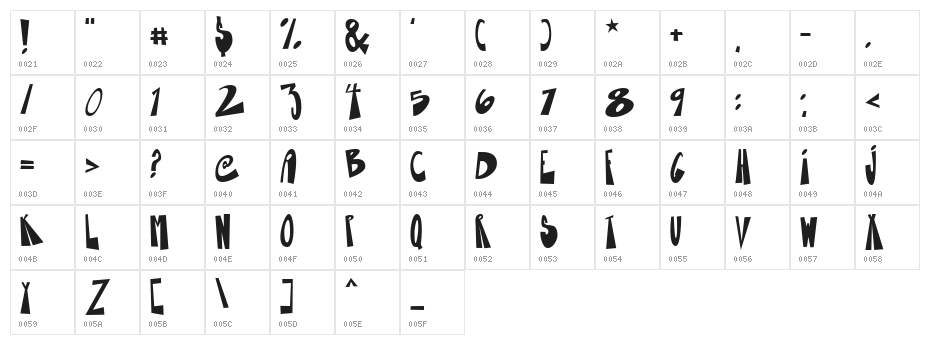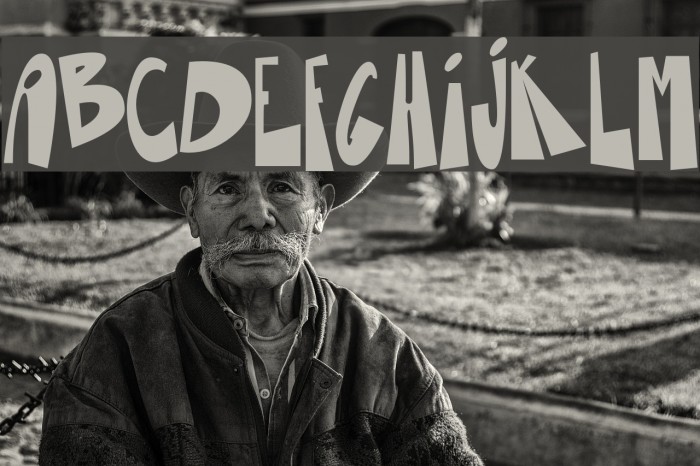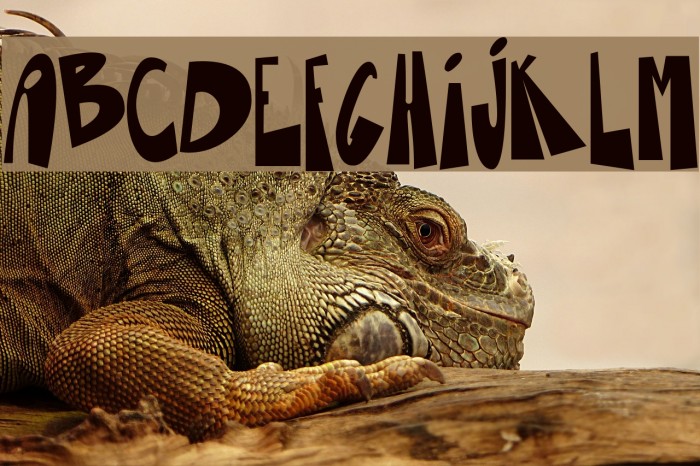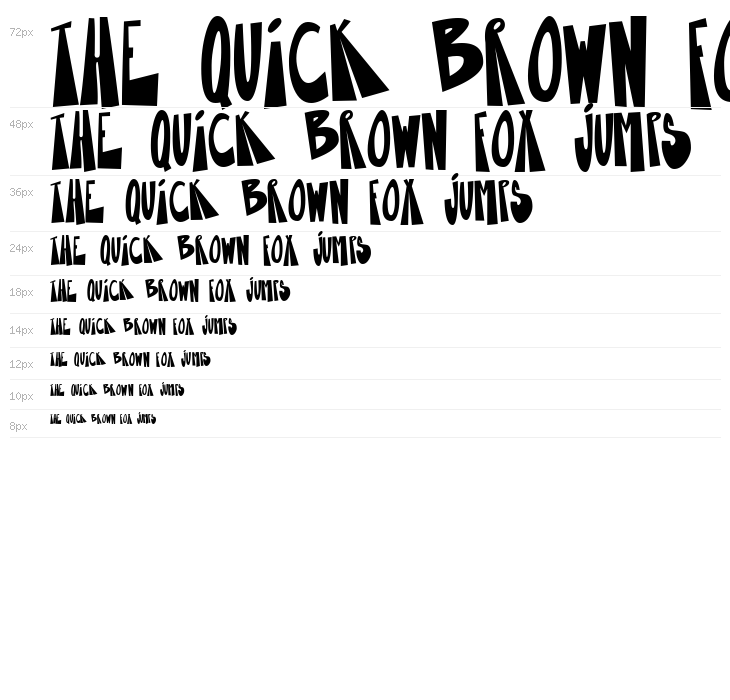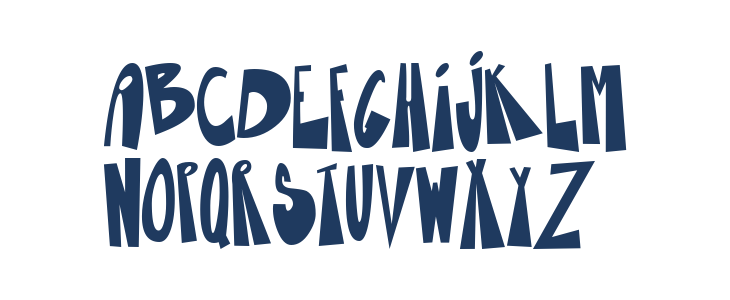
Gnarly Font
| Vorgeschlagene Projekte | Perfect for posters, album covers, branding for creative industries, and any project needing a fun, eye-catching look. |